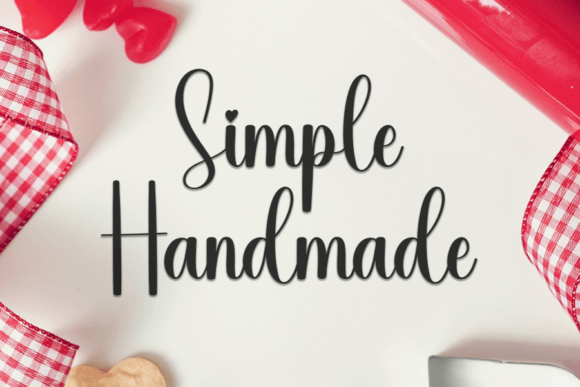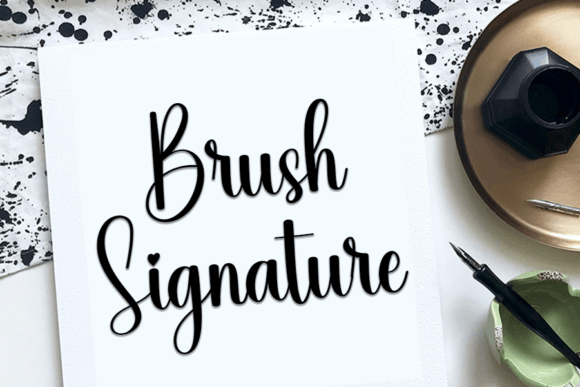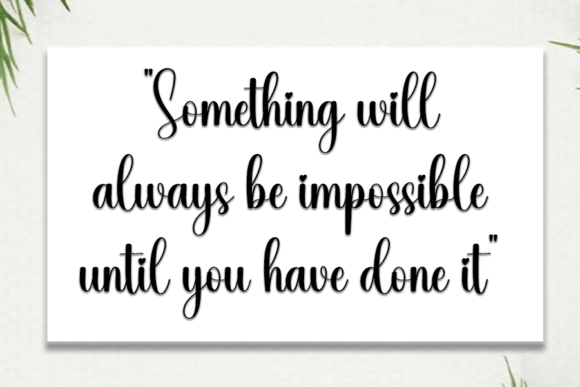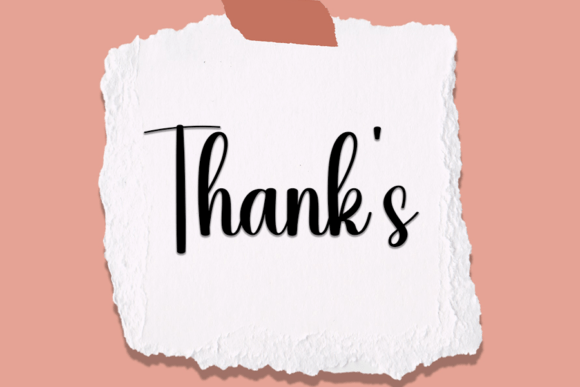
The Perfect Strike: Introducing Bowling Font
Have you ever been stuck in a creative rut, struggling to find the perfect font to bring your design to life? We’ve all been there. But what if I told you that the solution lies in the unlikeliest of places – a bowling alley?
That’s right; the Bowling Font is not just a clever name, but a delicate handwritten font carefully crafted to add a touch of cool and unique design to your work. Whether you’re writing a heartfelt letter, designing an invitation, or creating a title for your latest project, this font is sure to be a game-changer. And for designers, it’s a valuable asset that can elevate your work from ordinary to extraordinary.
With its playful, yet elegant feel, the Bowling Font is a must-have for any designer looking to add a personal touch to their designs. So why settle for a generic font when you can strike gold with the Bowling Font?
- Unique Characteristics: Features a distinctive, hand-drawn design with a fun and playful feel, perfect for creative projects and branding.
Bowling Font Review
Overall, I think the Bowling Font is a fun and quirky addition to any design project. ✨ Its unique, hand-drawn feel instantly adds a playful touch to any text-based element.
- ✨ The font’s irregularities and imperfections create a sense of personality and character that’s perfect for whimsical or retro-themed designs.
- ✨ The font’s bold lines and rounded edges make it easy to read, even at smaller font sizes.
- ✨ The font’s versatility allows it to be used in a wide range of design contexts, from logos to packaging to web design.
- ⚠️ The font’s inconsistent letter spacing can make it difficult to use for large blocks of text, where readability is crucial.
- ⚠️ The font’s playful feel may not be suitable for more formal or professional design projects.
- ⚠️ The font’s uniqueness can also make it challenging to pair with other fonts, as it may clash with more traditional or serif fonts.
Overall, I think the Bowling Font is a great choice for designers looking to add some personality to their projects. While it may have some limitations, its unique charm and versatility make it a valuable addition to any design toolkit.
Use the Bowling Font for creating playful and casual designs, such as:
– Promotional materials
– Party invitations
– Menus and other print materials
For best results, use the Bowling Font in conjunction with bold colors and creative graphics to create eye-catching designs.